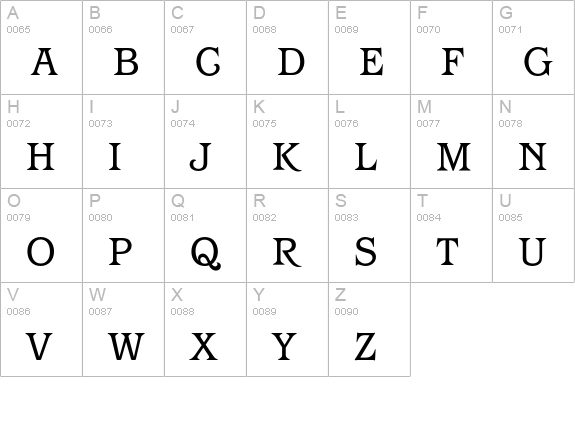
BarcelonaEF-Book is a comfortable, highly readable variant in the BarcelonaEF typeface family \xE2\x80\x94 well suited to long-form body text, articles, and editorial content.
BarcelonaEF-Book is a modern and stylish serif font that exudes elegance and sophistication. With its clean lines and classic design, this font is perfect for a wide range of projects, from branding to editorial design. Its balanced proportions and timeless appeal make it a versatile choice for any design application. What sets BarcelonaEF-Book apart is that it is not only visually appealing but also free to download. Yes, you read that right! You can get your hands on this stunning font without spending a dime. Simply head over to FontsMarket.com and start using BarcelonaEF-Book in your projects today. Whether you're working on a website, poster, logo, or any other design project, BarcelonaEF-Book is sure to elevate your work and give it a touch of sophistication. Don't miss out on this fantastic opportunity to add a premium font to your collection for free. Download BarcelonaEF-Book now and take your designs to the next level!